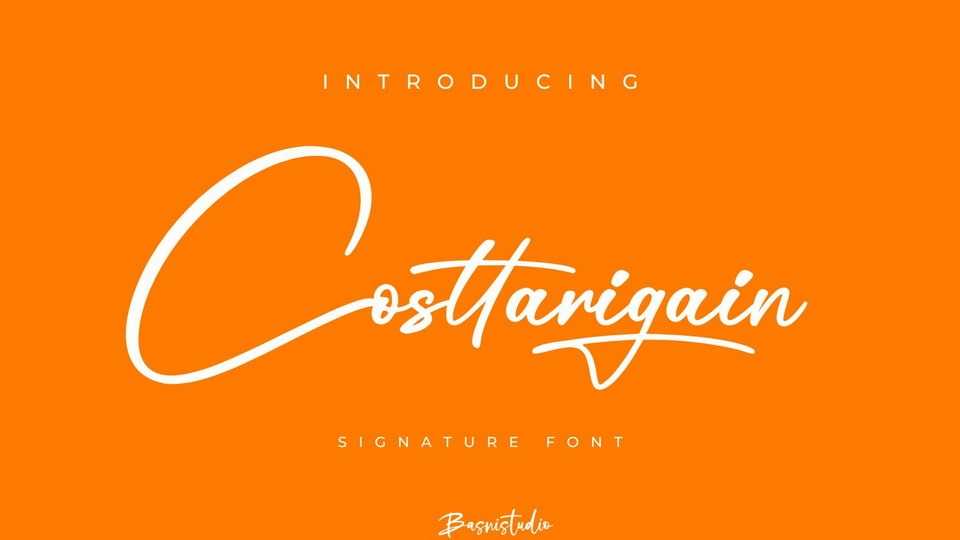
Download Costarigain font, a casual and natural handwritten typeface that effortlessly mimics the flow of a personal signature with its smooth strokes and slightly irregular details.